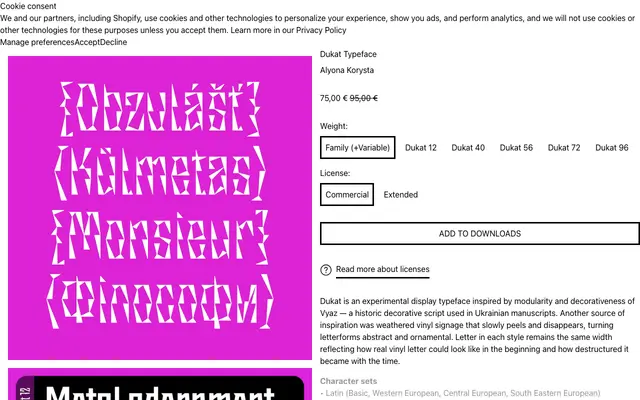
Dukat Typeface
An experimental variable display typeface by Alyona Korysta that stages the progressive decay of vinyl letterforms across five optical styles, rooted in Ukrainian manuscript script tradition.
Each of the five styles — numbered 12 through 96 — represents a stage in the physical deterioration of a vinyl letter, from intact to near-abstract, while each character holds a fixed width across all stages. The concept draws equally from Vyaz, the ornamental ligature script found in historic Ukrainian manuscripts, and from the weathered aesthetic of peeling adhesive signage. Latin and Cyrillic coverage spans Ukrainian, Serbian and Macedonian, with 544 glyphs including ligatures, alternates and a variable font file.
An experimental display typeface with variable optical sizes simulating the progressive decay of vinyl lettering, inspired by decorative Ukrainian manuscript script; clearly display-oriented with no text applications implied.